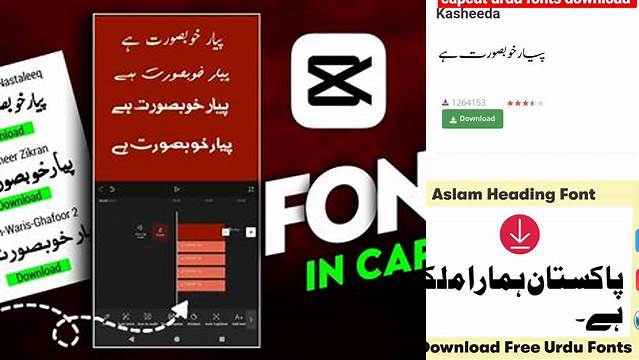
Mastering Urdu Fonts in CapCut: A Comprehensive Guide
Hey everyone! So, you're looking to jazz up your CapCut videos with some stylish Urdu fonts, huh? That's a fantastic idea, guys! Adding the right typography can totally transform your content, making it more engaging and visually appealing, especially when you're working with Urdu. CapCut, being such a versatile editing tool, makes it super easy to import custom fonts, but sometimes figuring out where to start with Urdu fonts can be a bit of a puzzle. This guide is here to break down exactly how to find, download, and use those perfect Urdu fonts in TTF format for your CapCut projects. We'll dive deep into the best places to snag these fonts, the simple steps to get them into CapCut, and some cool tips to make your text pop. Whether you're creating a travel vlog, a cooking tutorial, or a heartfelt message, the right Urdu font will speak volumes. So, let's get your video editing game on point and make your Urdu text look absolutely stunning!
Why Urdu Fonts Matter in CapCut Video Editing
Alright, let's chat about why picking the right Urdu fonts for your CapCut videos is actually a pretty big deal. When you're editing videos, especially for an audience that understands and appreciates the beauty of the Urdu language, the font you choose isn't just about filling space; it's about conveying emotion, style, and clarity. Think about it, guys: a flowing, calligraphic Urdu font can add an elegant touch to a wedding video, while a bold, modern font might be perfect for a news update or an energetic social media clip. Using the correct Urdu fonts ensures that your text is not only readable but also culturally appropriate and aesthetically pleasing. If the font is too thin, too ornate, or just not designed for the nuances of Urdu script, it can make your message harder to understand and detract from the overall professionalism of your video. CapCut offers a decent range of built-in fonts, but for that authentic, professional look that truly resonates with an Urdu-speaking audience, importing your own TTF (TrueType Font) files is key. These custom fonts allow you to express a wider range of styles, from traditional Nastaliq to contemporary sans-serif, giving your videos that unique edge. Plus, it shows you've put extra thought and care into the presentation, which audiences definitely notice and appreciate. So, investing a little time in finding and using great Urdu fonts will really pay off in the quality and impact of your CapCut creations. Trust me on this one!
Using Your Imported Urdu Fonts in CapCut
So, you've successfully imported your TTF Urdu fonts into CapCut – awesome job, guys! Now let's talk about actually using them to make your videos look incredible. Once your custom Urdu font is imported, it will be listed alongside CapCut's default fonts in the font selection menu. When you add text to your video and go to choose a font, simply scroll through your font list, find the Urdu font you just imported, and select it. Your Urdu text will instantly update to reflect the new font style. This is where the real magic happens, right? You can now experiment with different imported Urdu fonts for your titles, captions, or any text overlays. Play around with font size, color, and positioning to create the perfect look. For instance, a flowing Nastaliq font might be ideal for a romantic subtitle, while a cleaner, bolder font could work wonders for a prominent heading. Don't be afraid to mix and match different fonts within your video, but always ensure they complement each other and the overall aesthetic of your content. Remember to preview your text in the video timeline to see how it looks with the background and other elements. Sometimes, a font that looks great on its own might need slight adjustments in size or color when placed over busy footage. The key is to make sure your Urdu text is not only stylish but also perfectly legible. With your custom Urdu fonts library growing, your CapCut videos will have a professional and personalized touch that really stands out. Get creative with it!
Troubleshooting Common Urdu Font Issues in CapCut
Even with the best intentions, sometimes things don't go perfectly when working with new fonts, guys. If you're encountering issues with your imported Urdu TTF fonts in CapCut, don't sweat it! We can troubleshoot most common problems. One frequent issue is the font not appearing in CapCut after import. Double-check that you imported the correct file type – it must be a .ttf file. Also, ensure you fully extracted the font from the .zip folder before trying to import it. Sometimes, a simple app restart or device reboot can resolve recognition issues. Another common problem is incorrect character display or jumbled text. This usually means the font wasn't designed with proper support for Urdu script, or there might be a compatibility issue with CapCut. Try downloading a different Urdu font from a reputable source, preferably one known to work well with multilingual text. Ensure your device's language settings are appropriate, though CapCut usually handles this well. If the text looks distorted or characters are missing, it's almost always the font file itself that's the culprit. Look for fonts specifically tested for Urdu or those with clear indications of Urdu script support. Lastly, if the font looks too small or too large regardless of the size setting, it might be an issue with the font's inherent design. You can often adjust this using CapCut's size controls, but if it remains unmanageable, it’s best to find an alternative font. Remember, quality matters, so sticking to well-vetted fonts from trusted sources minimizes these headaches.
Ensuring Readability with Urdu Fonts in Videos
Readability is king, especially when you're using Urdu fonts in your CapCut videos, guys. You want your message to be clear and accessible to everyone watching. It's not just about picking a pretty font; it's about choosing one that ensures your Urdu text is easy to read against various video backgrounds and in different playback sizes. When selecting an Urdu TTF font for download, pay close attention to its clarity. Fonts with simpler, more defined strokes tend to be more readable than highly ornate or complex calligraphic styles, especially for smaller text like captions. Consider the context: for quick on-screen titles, a bold, clean sans-serif Urdu font might be best. For more artistic or storytelling segments, a stylized Nastaliq could work, but perhaps in a larger size or with a contrasting outline to enhance legibility. Test your chosen font with actual Urdu text. Type out phrases you plan to use and see how they look in CapCut. Check how the letters connect and if there are any awkward spacings or ligatures that might hinder readability. Always preview your text overlay on top of your actual video footage. Does the font color contrast well with the background? If not, use CapCut's text editing tools to add a solid background, an outline, or a drop shadow to make the text pop. Remember, the goal is for your audience to effortlessly absorb the information or appreciate the style without struggling to read it. Choosing a font that balances aesthetic appeal with excellent readability is crucial for effective video communication in Urdu.
Conclusion: Elevate Your Videos with the Right Urdu Fonts
So there you have it, guys! We've journeyed through the essentials of finding, downloading, and using TTF Urdu fonts in CapCut. From understanding why specific fonts matter for readability and style, to navigating the best websites, troubleshooting issues, and even exploring advanced effects – you're now equipped to make your Urdu text truly shine. Remember, the right font isn't just decoration; it's a vital part of your storytelling, conveying emotion, professionalism, and cultural nuance. Choosing the perfect Urdu font can transform a good video into a great one, capturing your audience's attention and ensuring your message is delivered clearly and beautifully. Don't shy away from experimenting with different styles – whether it's classic Nastaliq for elegance or a modern sans-serif for a contemporary feel. Keep practicing, keep exploring new fonts, and always prioritize legibility. CapCut provides a fantastic platform for this, and by leveraging custom Urdu fonts, you can add a unique, polished touch to all your video projects. Go forth and create amazing content that speaks volumes in stunning Urdu script! Happy editing!